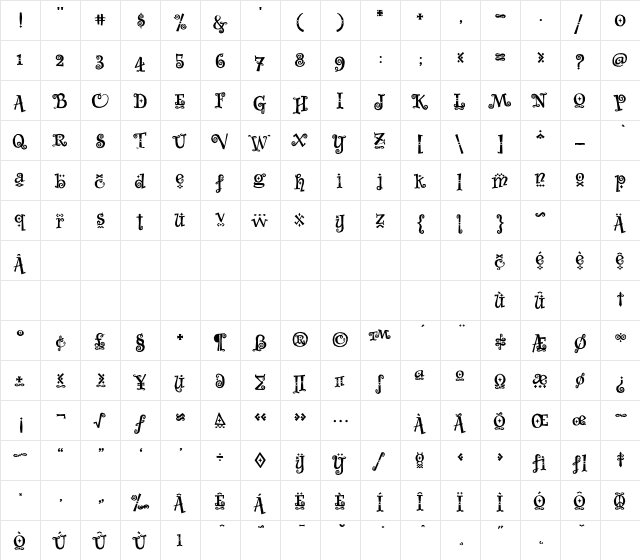
WhimsyBaroqueICG Regular
Design Context for WhimsyBaroqueICG Typeface
WhimsyBaroqueICG is a composed and adaptable typeface that performs quietly and consistently across a wide range of design contexts.